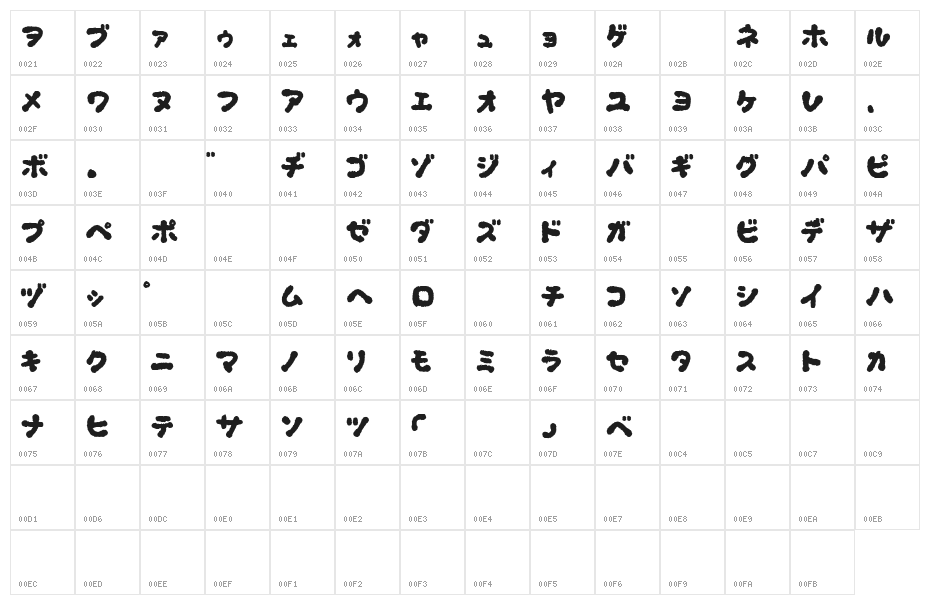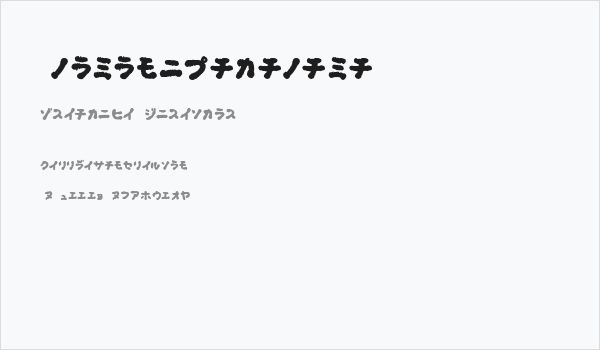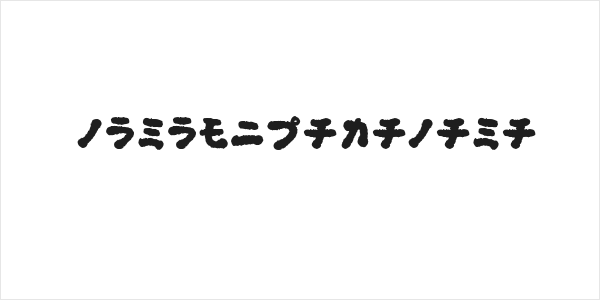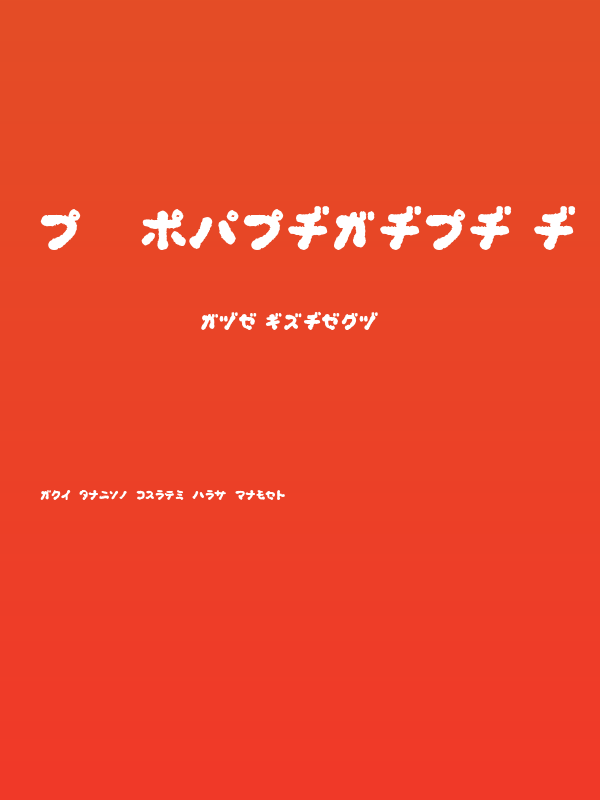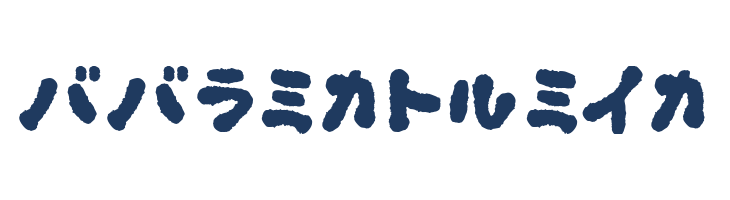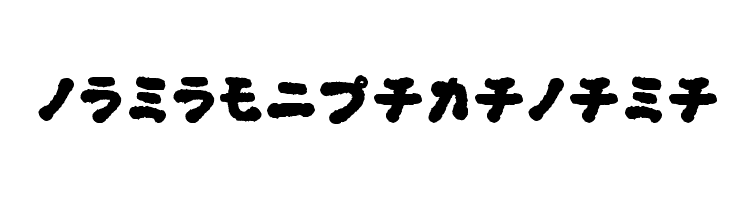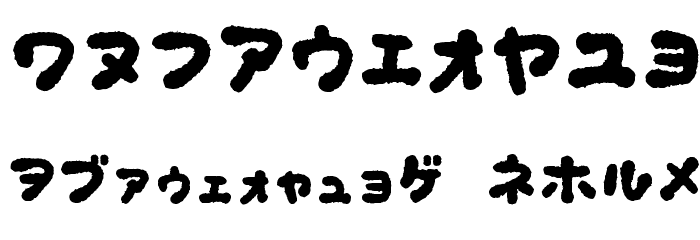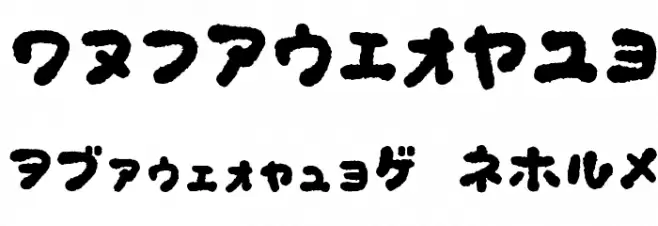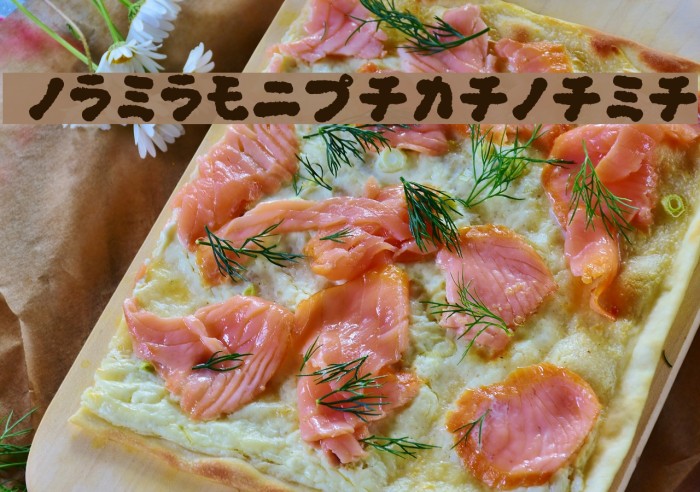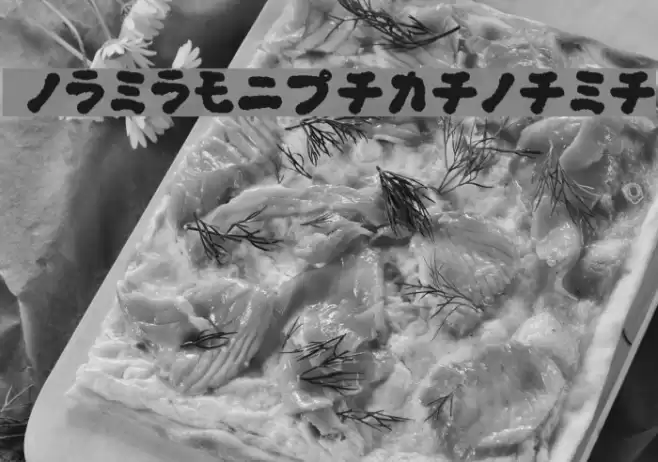
OkonomiKatakana Font
OkonomiKatakana Description
This font features a playful and bold style with a hand-drawn appearance. The characters are rounded and slightly irregular, giving them a casual and friendly look. The strokes are thick and consistent, creating a strong visual impact. The overall design is reminiscent of traditional Japanese calligraphy but with a modern twist, making it suitable for creative and informal projects. The characters are well-spaced, ensuring readability while maintaining a unique aesthetic. This font is ideal for designs that require a touch of personality and cultural flair.